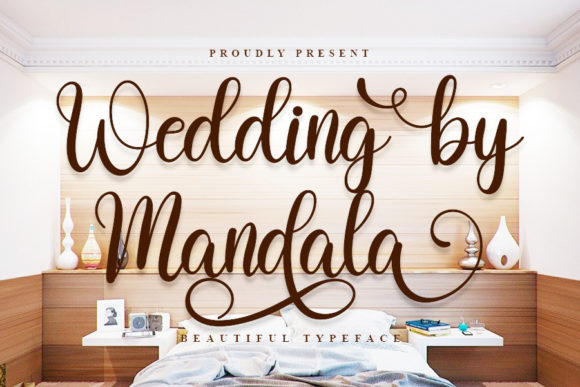
Step into the realm of timeless elegance with "Wedding by Mandala Font," a script of unrivaled beauty and sophistication that will make your words dance with grace. This masterpiece from FreshTypeINK transcends the ordinary, captivating hearts with its classy, elegant, and modern flair.
Prepare to be mesmerized as you witness the seamless harmony of flowing lines and delicate curves, each stroke a testament to the artistry that went into its creation. Imagine your logos, branding, invitations, stationery, and wedding designs adorned with this treasure, radiating an aura of sophistication that will leave an unforgettable impression.
Unleash your creativity on social media, where "Wedding by Mandala Font" will elevate your posts to new heights of engagement. With its effortless charm and versatility, this font possesses the remarkable ability to transform the mundane into the extraordinary.
Embrace the endless possibilities that await you with "Wedding by Mandala Font." Its intuitive PUA encoding grants you effortless access to a world of glyphs and swashes, empowering you to add an extra layer of exquisite detailing to your designs.
Dare to embark on a typographic journey where elegance knows no bounds. Allow "Wedding by Mandala Font" to be your guiding light, leading you to a realm where creativity flourishes and beauty reigns supreme.